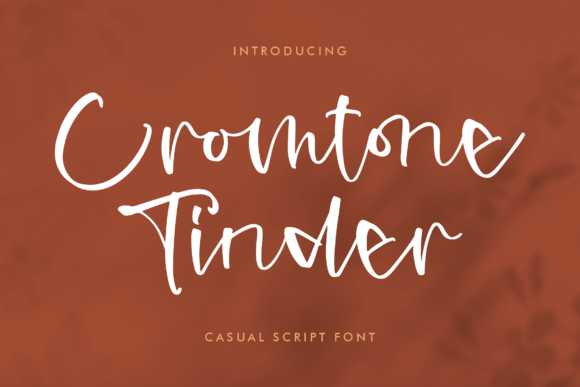
Prepare yourself to embark on a typographic journey like never before with Cromstone Tinder Font, a script font that will ignite your creativity and leave an enchanting mark on your designs. Dive into a world where elegance and charm intertwine, creating captivating visual masterpieces.
With its graceful strokes and captivating curves, Cromstone Tinder Font breathes life into words, transforming them into works of art. Experience the allure of handwritten beauty as this font dances across your screens, adding a personal touch to every project you undertake.
Whether you're a seasoned graphic designer crafting stunning logos or a budding entrepreneur looking to leave a lasting impression, Cromstone Tinder Font is your perfect companion. Its versatility knows no bounds, adapting seamlessly to a myriad of projects. From branding initiatives that demand a touch of sophistication to homeware designs that yearn for a dash of charm, this font delivers every time.
Picture your products adorned with the exquisite lettering of Cromstone Tinder Font, creating an irresistible appeal that draws customers in like moths to a flame. Imagine your marketing materials infused with a touch of handwritten elegance, captivating audiences and leaving them longing for more.
With Cromstone Tinder Font, you have the power to transform the ordinary into the extraordinary. Embrace the beauty of hand-lettering and watch as your designs blossom into works of art. Don't settle for ordinary fonts; indulge in the splendor of Cromstone Tinder Font today.